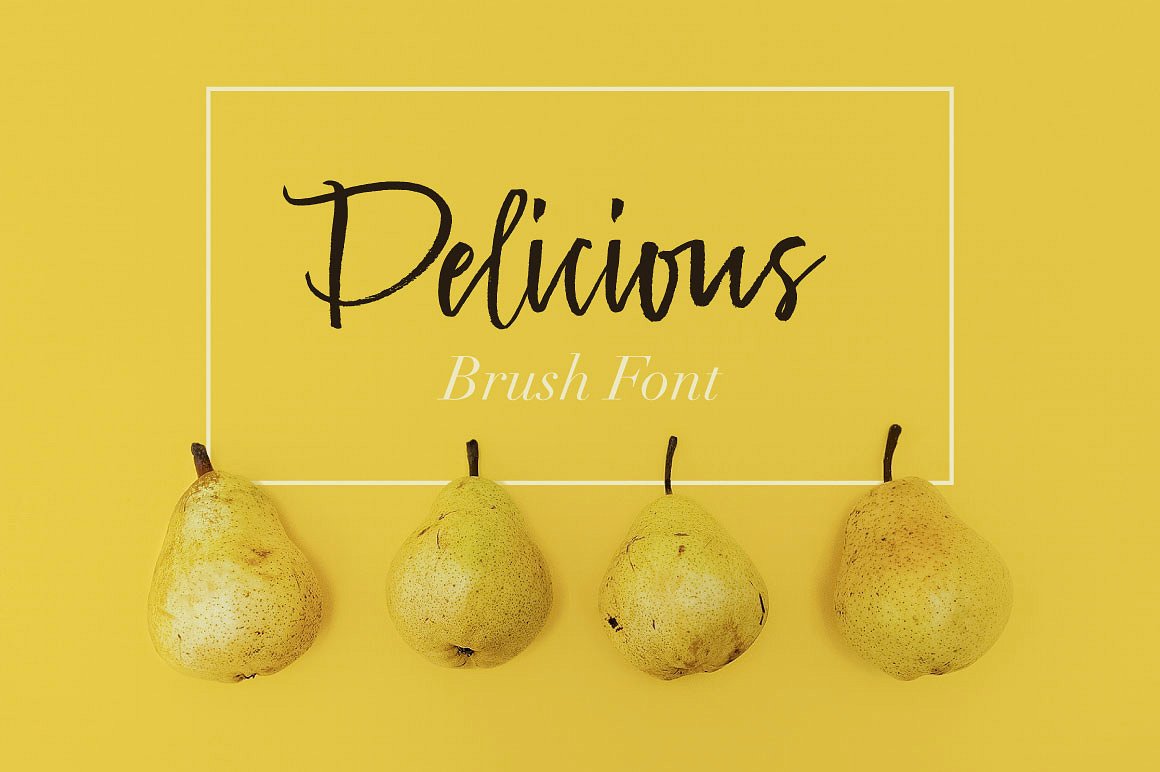
Delicious Brush Font
Delicious Brush Font is a bright juicy lovely modern calligraphy typefaces. Delicious is good for both short texts and headlines.